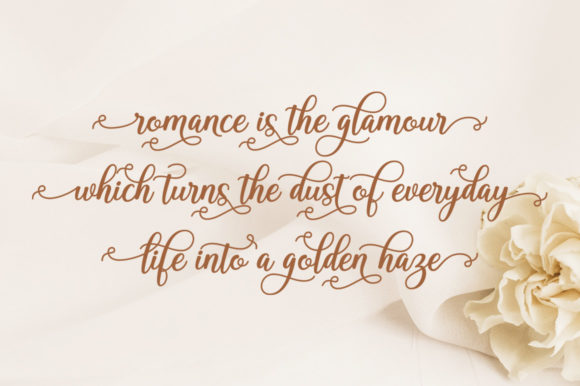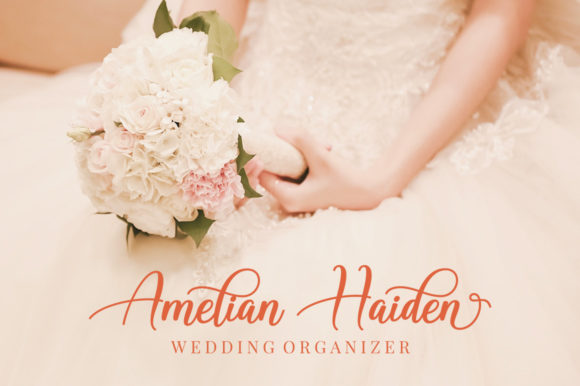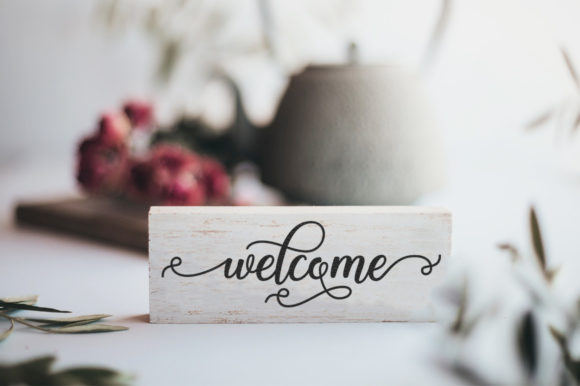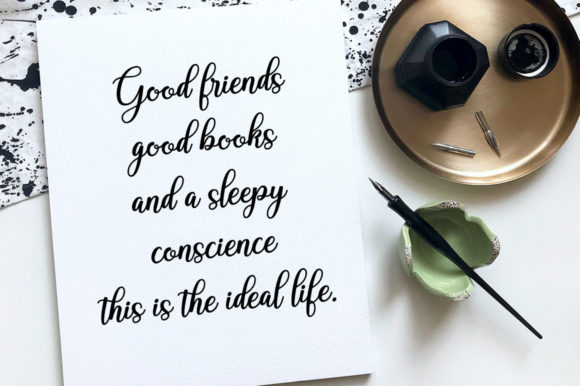
Introduction to Meighan Font
Meighan is a stunning script font that has a beautiful and modern feel to it.
It is the perfect font to use on wedding invitations, for business branding, menus and so much more This font is PUA encoded which means you can access all of the glyphs and swashes with ease.
Meighan Font offers exceptional quality and versatility, making it a valuable addition to your design toolkit. Whether you’re creating for personal projects or commercial use, Meighan Font delivers professional results.